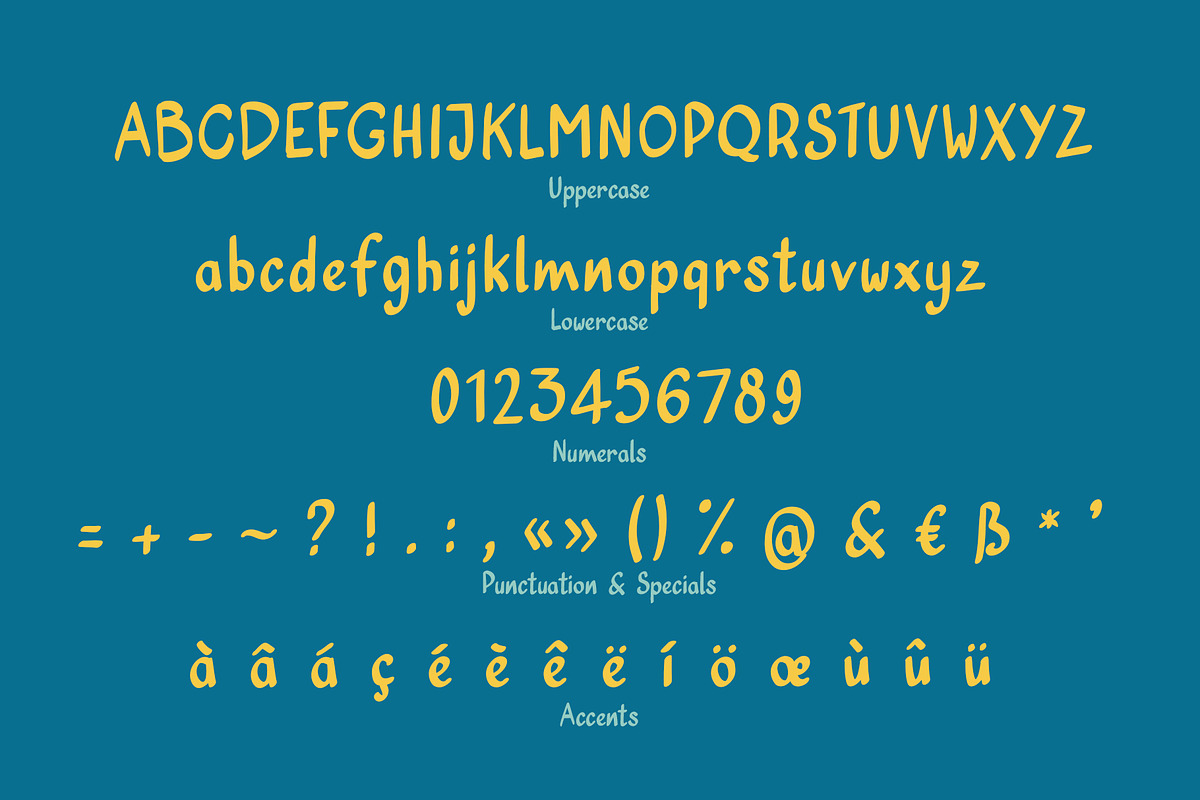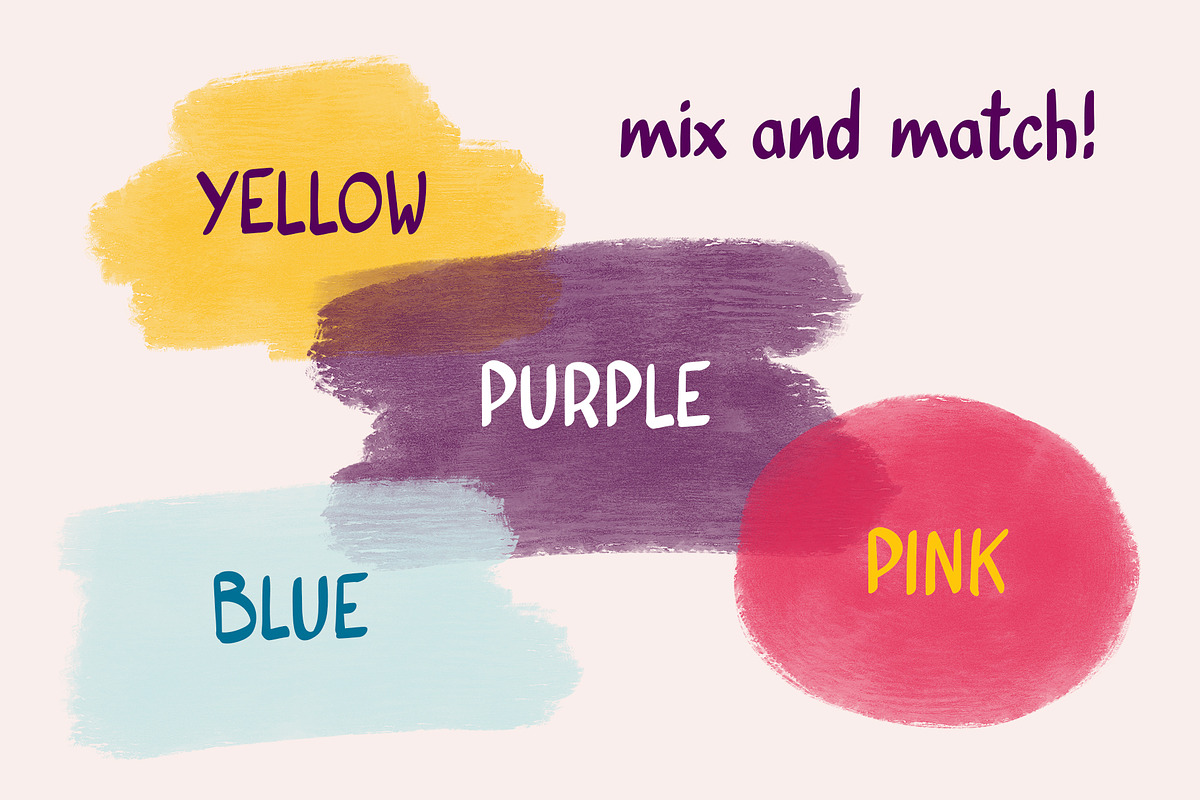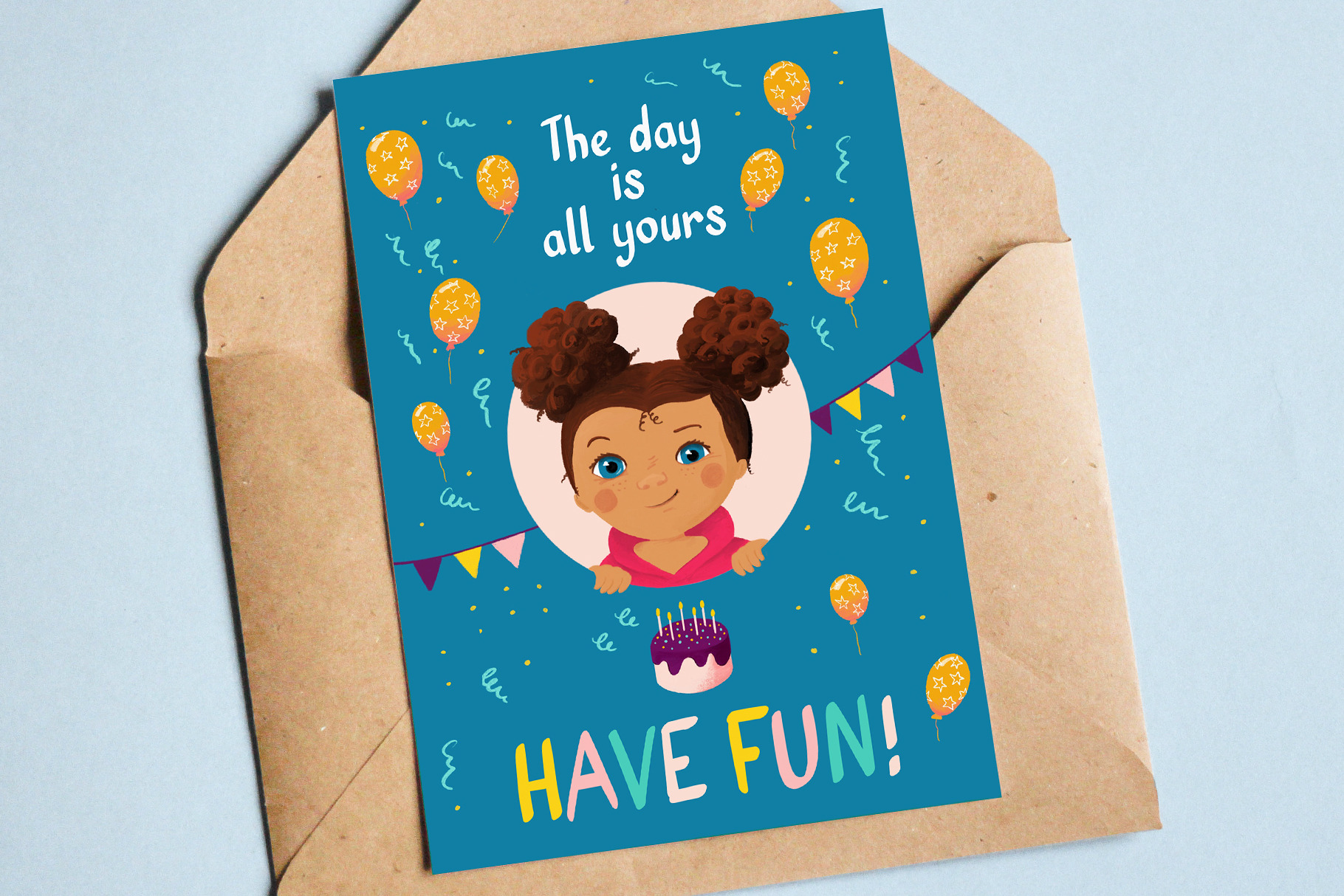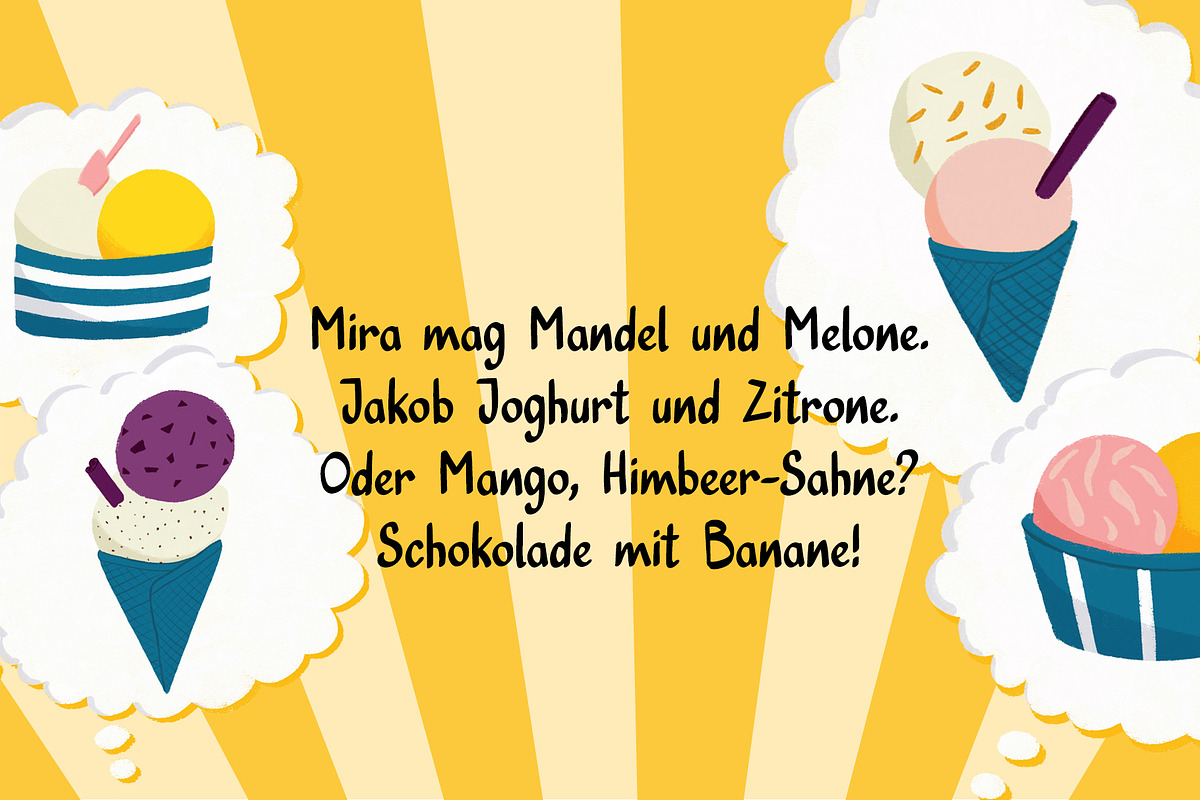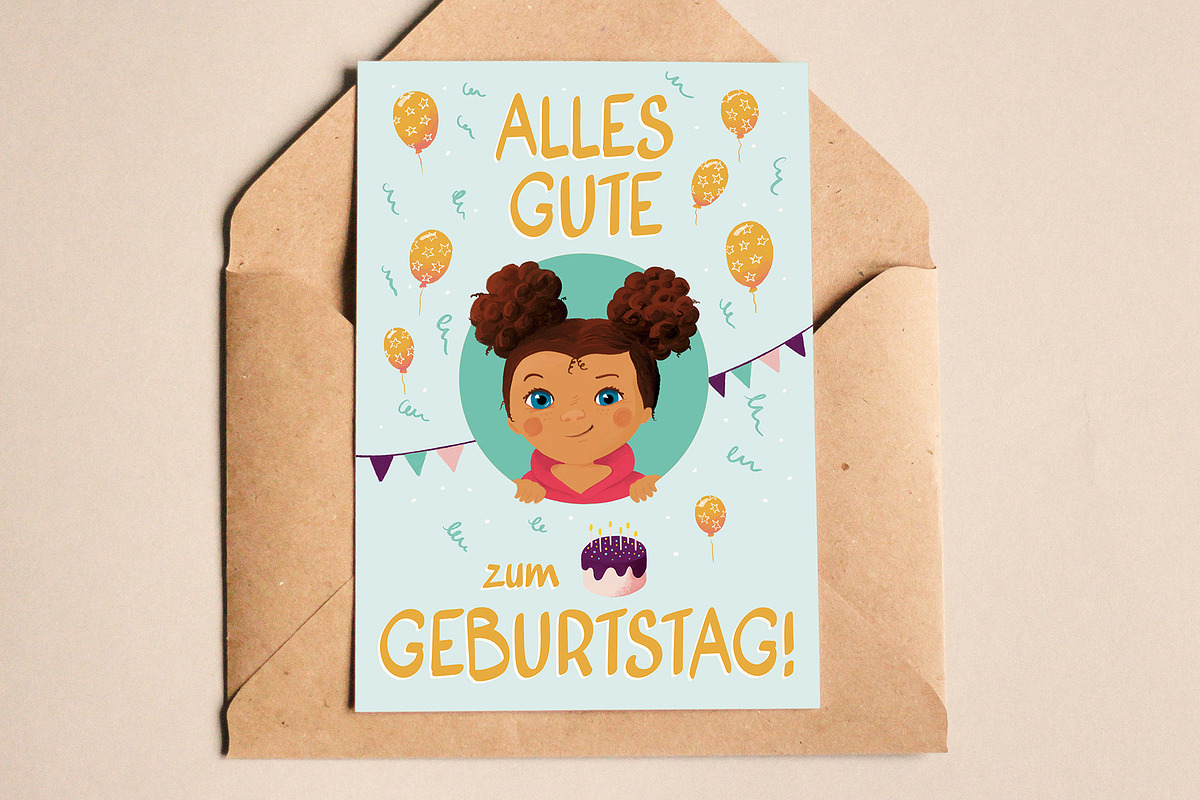
MIRA plays Font
MIRA plays is an playful typeface originally designed for the children's book “MIRA und die Jahresuhr”. Inspired by the world of childhood, this font combines smooth readability with a cheerful design.
It was created to be:
- Easy to read for children, especially those learning to read.
- Aesthetically appealing for creative projects related to childhood, education, or entertainment.
With its simple, soft, and slightly rounded shapes, MIRA plays is perfect for picture books, teaching materials, educational apps, or any project aimed at a young or family audience.
Designed for : Children's books and magazine. Educational materials. Posters and flyers for school, family, or cultural events. Board games. Packaging for children. Fun and interactive application interfaces. Food packaging. Handcrafted labels.